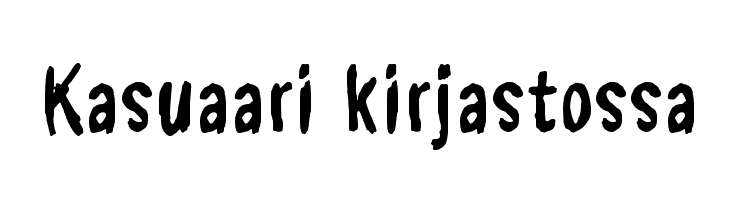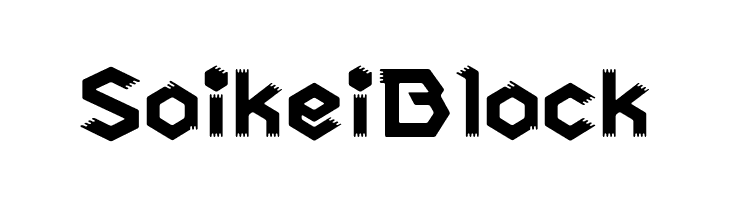
A bold, geometric font with a digital glitch effect, perfect for modern and edgy designs.
A bold, jagged font with a horror-inspired, hand-drawn style.
A decorative font with characters inside lace-bordered hearts, offering a playful and romantic style.
A bold, fiery font with dynamic flame effects on each character.
A bold, geometric font with a modern and edgy design.
A playful, bubbly font with rounded characters and a whimsical style.
A playful, hollow decorative font with bold strokes and whimsical style.